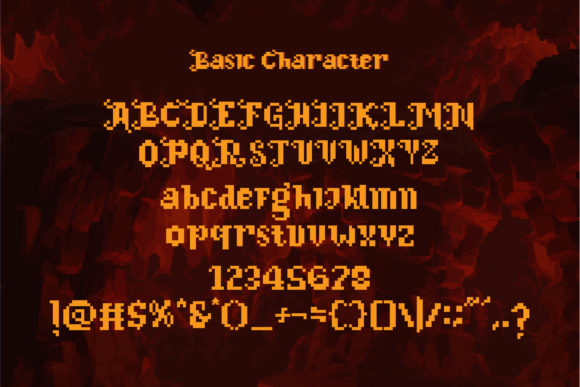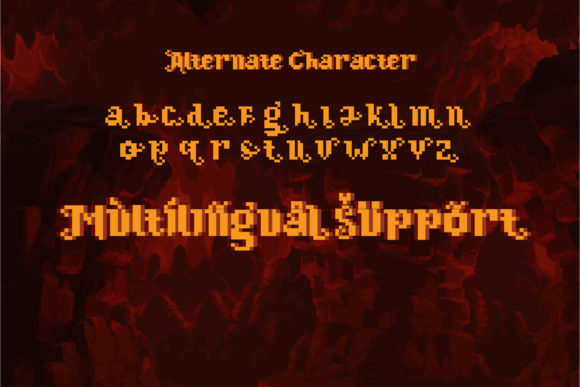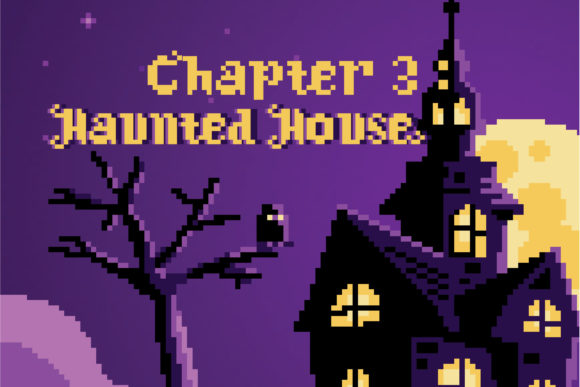
Introduction to Halloween Pixel Font
Halloween Pixel is a wonderful combination of spookiness and modern style.
Duo to its unique yet versatile feel, this font will fit a wide range of creations The only limit is your imagination.
Key Features of Halloween Pixel Font
Why Choose Halloween Pixel Font?
Halloween Pixel Font offers exceptional quality and versatility, making it a valuable addition to your design toolkit. Whether you’re creating for personal projects or commercial use, Halloween Pixel Font delivers professional results.